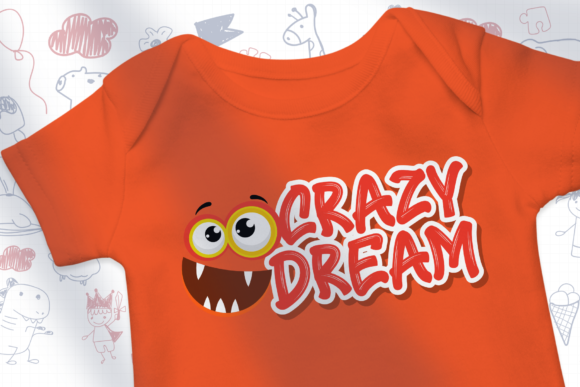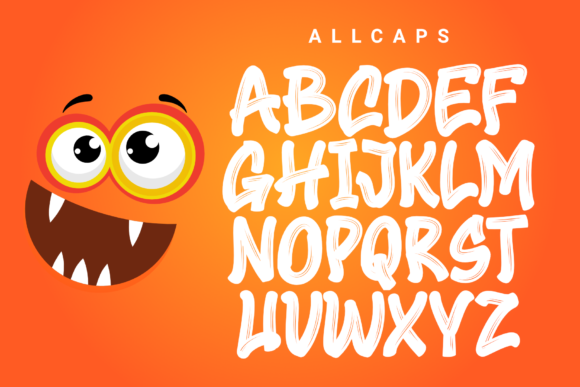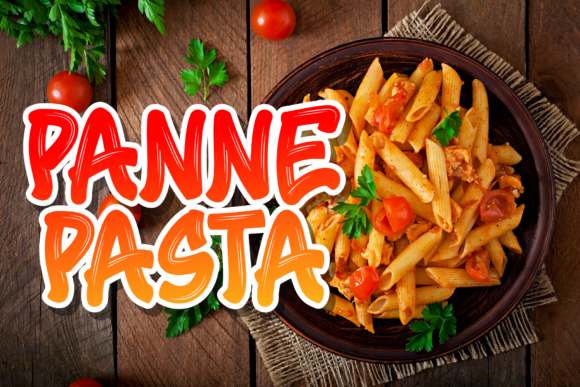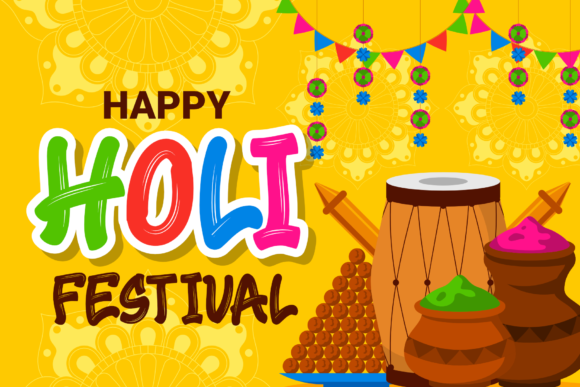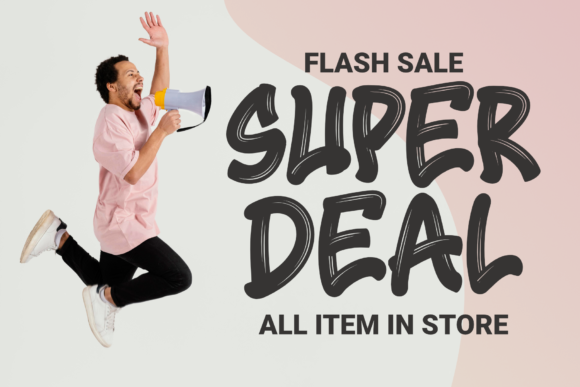
Introduction to Crazy Dream Font
Crazy Dream is a cute and quirky display font.
It will add an incredibly joyful touch to your designs Add this beautiful display font to each of your creative ideas and notice how it makes them stand out.
Crazy Dream Font offers exceptional quality and versatility, making it a valuable addition to your design toolkit. Whether you’re creating for personal projects or commercial use, Crazy Dream Font delivers professional results.